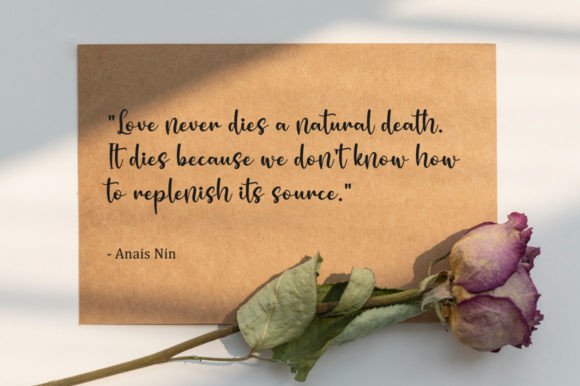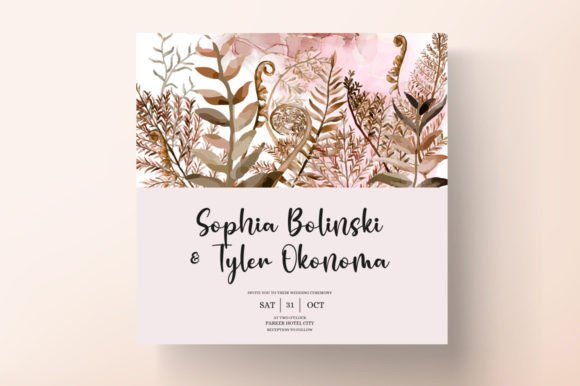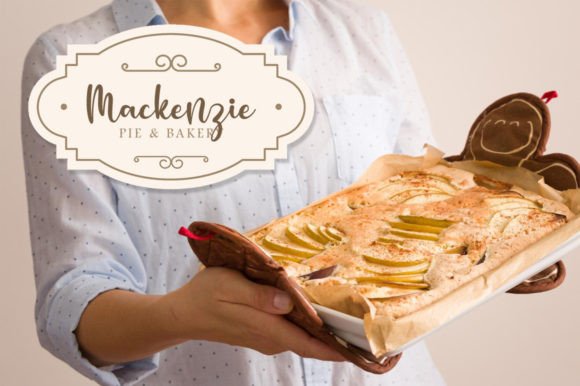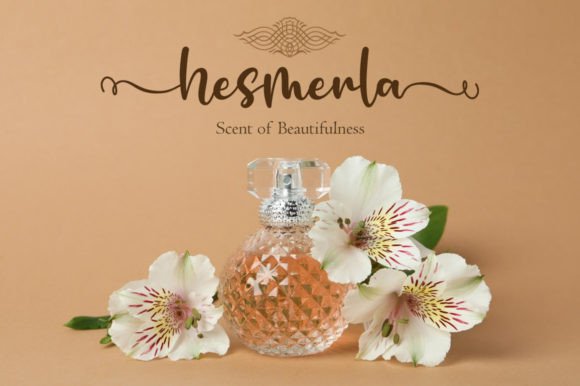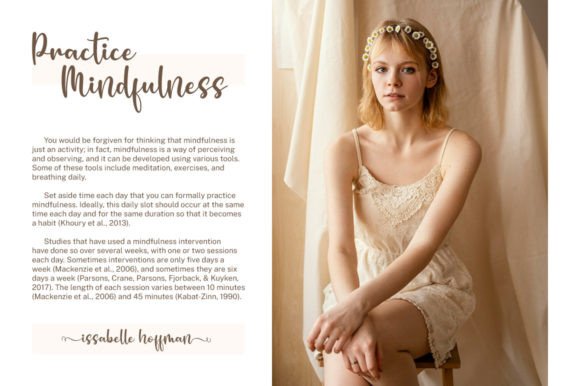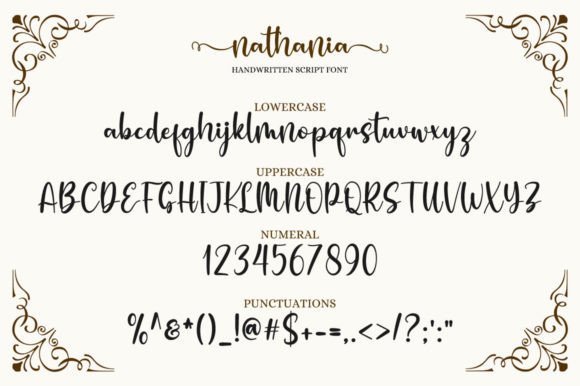
Introduction to Nathania Font
Nathania is a lovely and timeless handwritten font.
It is the best choice for creating eye-catching logos, branding, and quotes Nathania is PUA-encoded, which means you can access all of the glyphs and swashes with ease.
Key Features of Nathania Font
Why Choose Nathania Font?
Nathania Font offers exceptional quality and versatility, making it a valuable addition to your design toolkit. Whether you’re creating for personal projects or commercial use, Nathania Font delivers professional results.